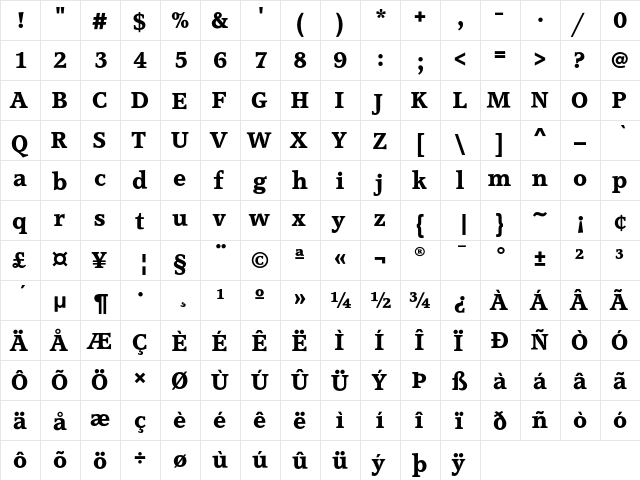
AccoladeEF Bold
Design Context for AccoladeEF Typeface
AccoladeEF is a composed and adaptable typeface that performs quietly and consistently across a wide range of design contexts. The heavy weight commands attention and anchors typographic hierarchies.